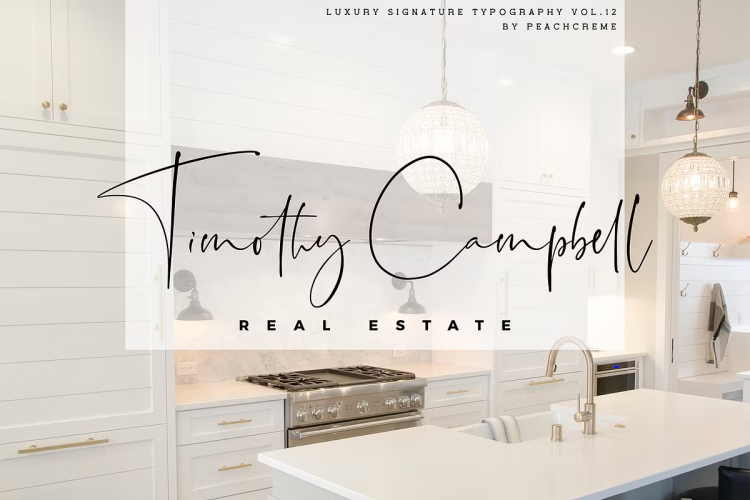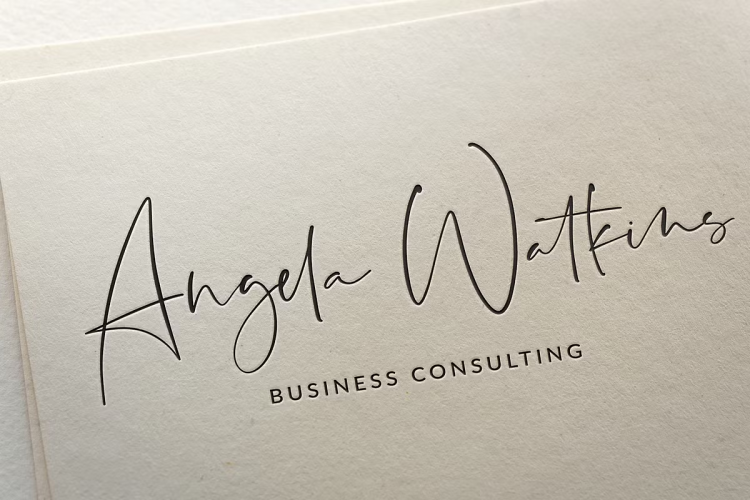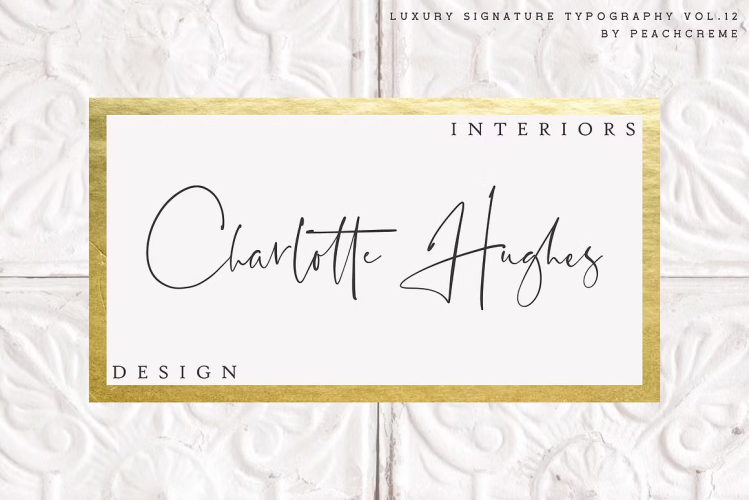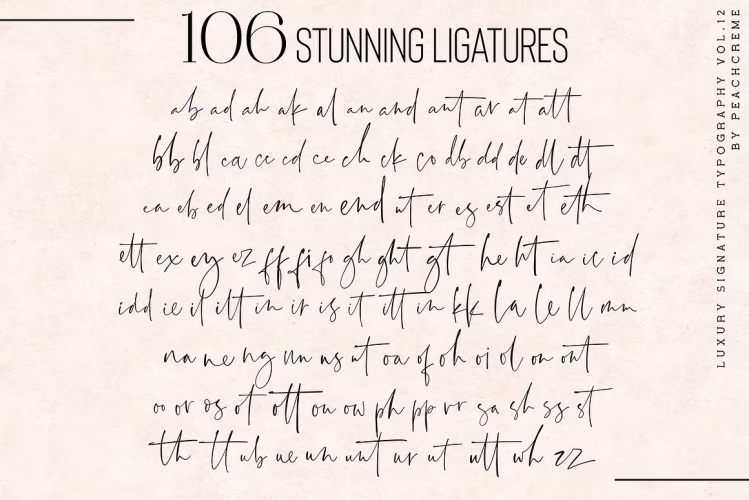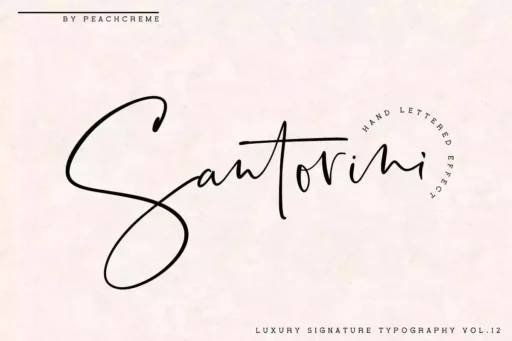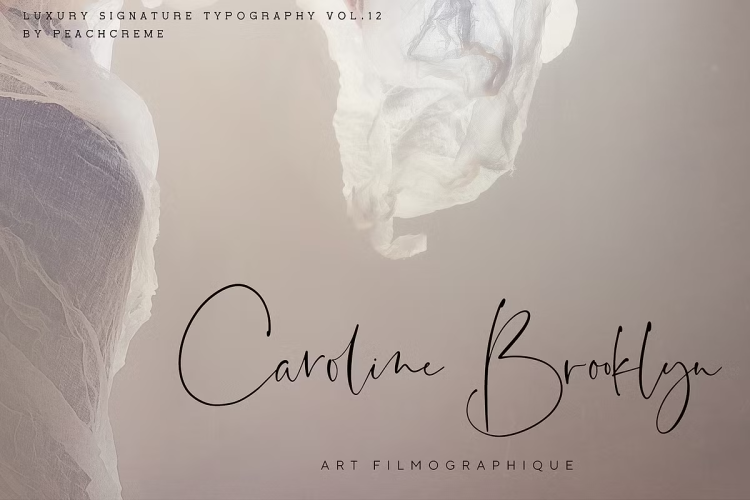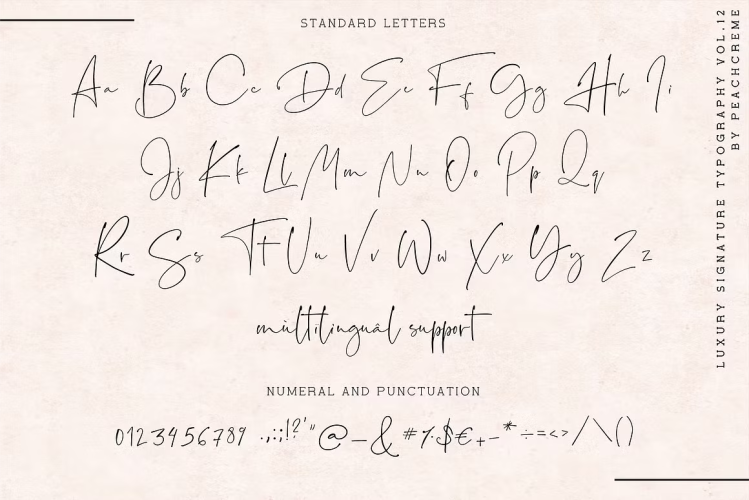
Santorini Font
Santorini is a beautiful and luxury signature font by PeachCreme. This font is designed for Branding purposes. It is perfect for luxury and elegance logo designs.
To keep the handwritten style, I created 106 ligatures (which you can see in the presentation images). When designing this font it was important that each letter was linked to the other letters. For example, the letter “a” should transit fluently with “l” and “n” and with any other letter. This requirement meant we had to begin and end all the letters at some specific points that is why the ligatures were important. Santorini includes the following ligatures:
ab ad ah ak al an and ant ar at att bb bl ca cc cd ce ch ck co db dd de dl dt ea eb ed el em en end nt er es est et eth ett ex ey ez ff fi fo gh ght gt he ht ia ic id idd ie il ilt in ir is it itt in kk la le ll mm na ne ng nn ns nt oa of oh oi ol on ont oo or os ot ott ou ow ph pp rr sa sh ss st th tt ub ue un unt ur ut utt wh zz
Santorini also has all the uppercase and lowercase letters, multilingual symbols, numerals and punctuation. The font has a smooth wet ink texture, so it will be suitable for any kind of printing methods+it is suitable for embroidery, laser cut, gold foil etc.
Where Santorini Font works best
Santorini Font brings a personal, handwritten warmth to invitations, menus and place cards.
Craft brands — coffee, cosmetics, bakery — use scripts like Santorini Font for signature-style logos and labels.
Pair Santorini Font with a plain sans for quotes, stories and Pinterest pins that feel handmade.
What is Santorini Font good for?
Santorini Font is a Script And Handwritten typeface tagged Branding, Elegant, Handwritten, Santorini. It works well for headlines, logos, posters, social media graphics and branding projects that need a distinctive script and handwritten look.